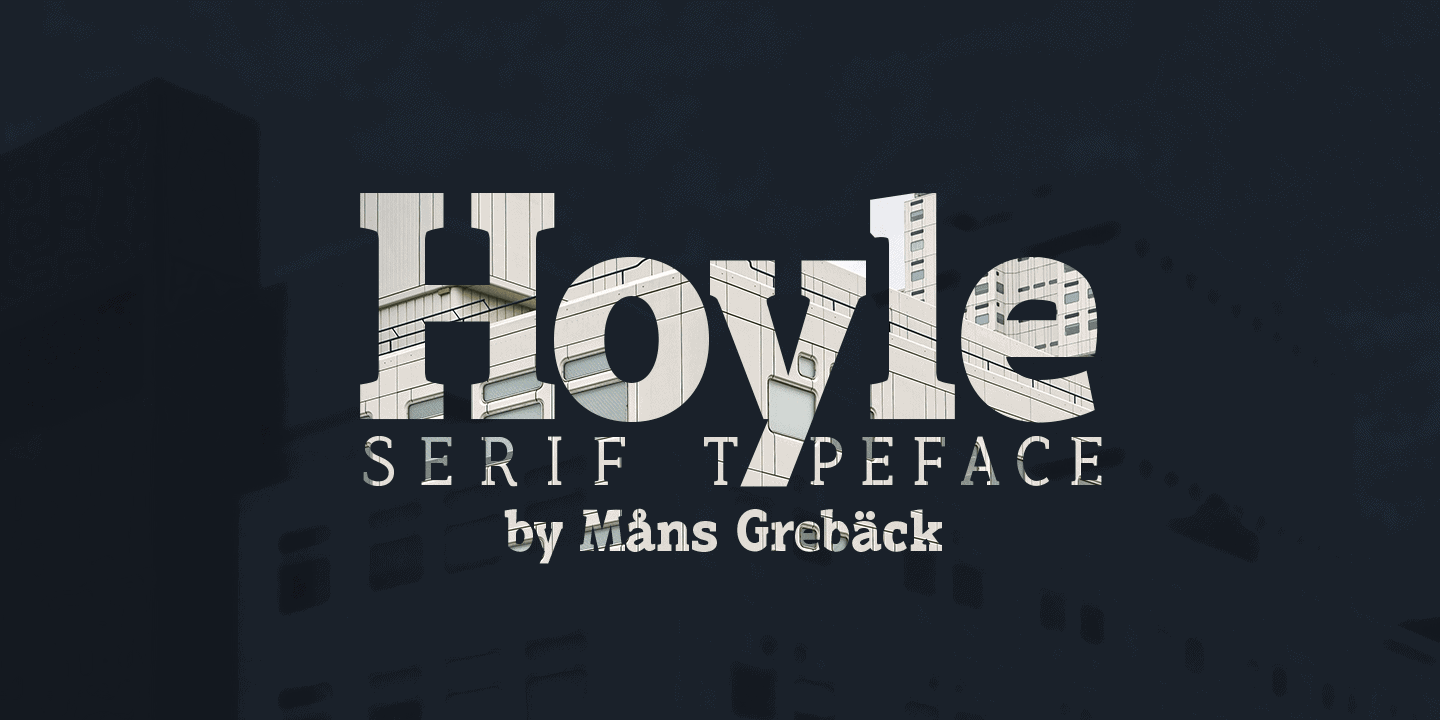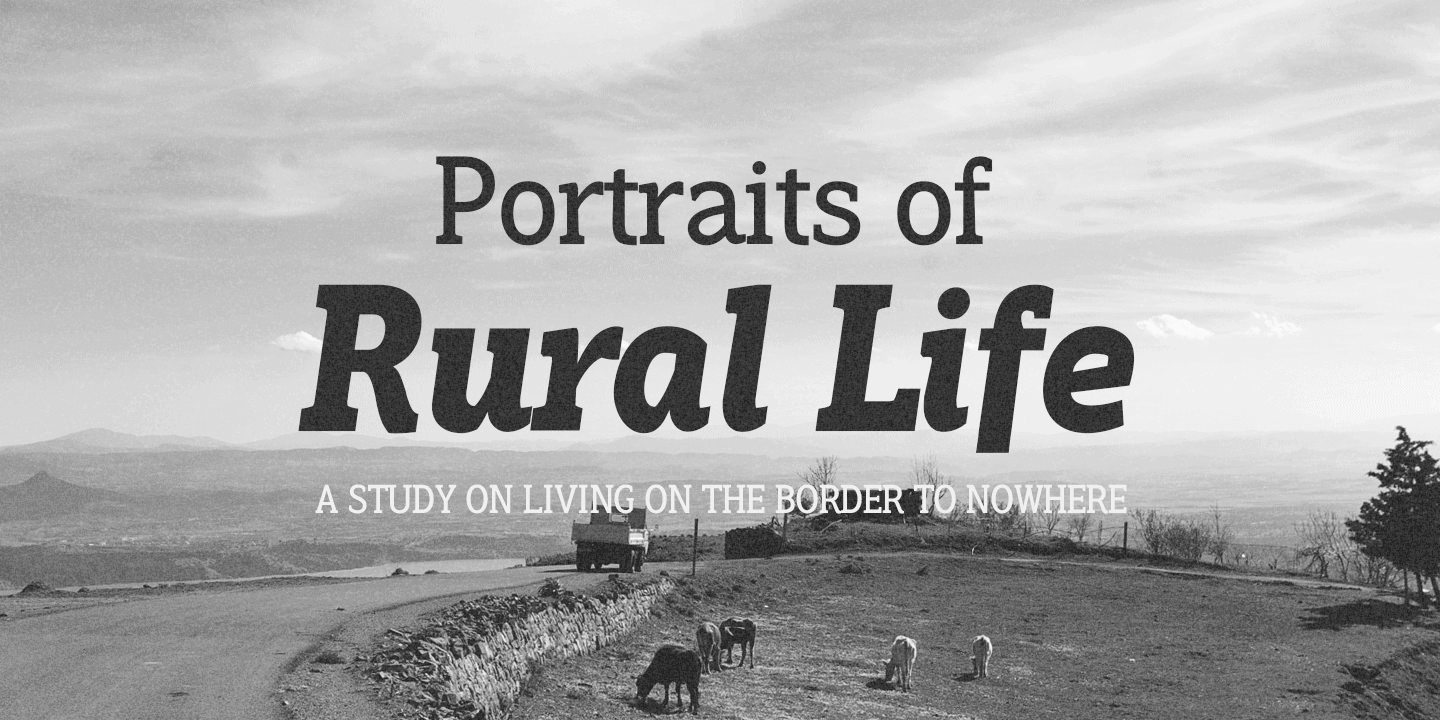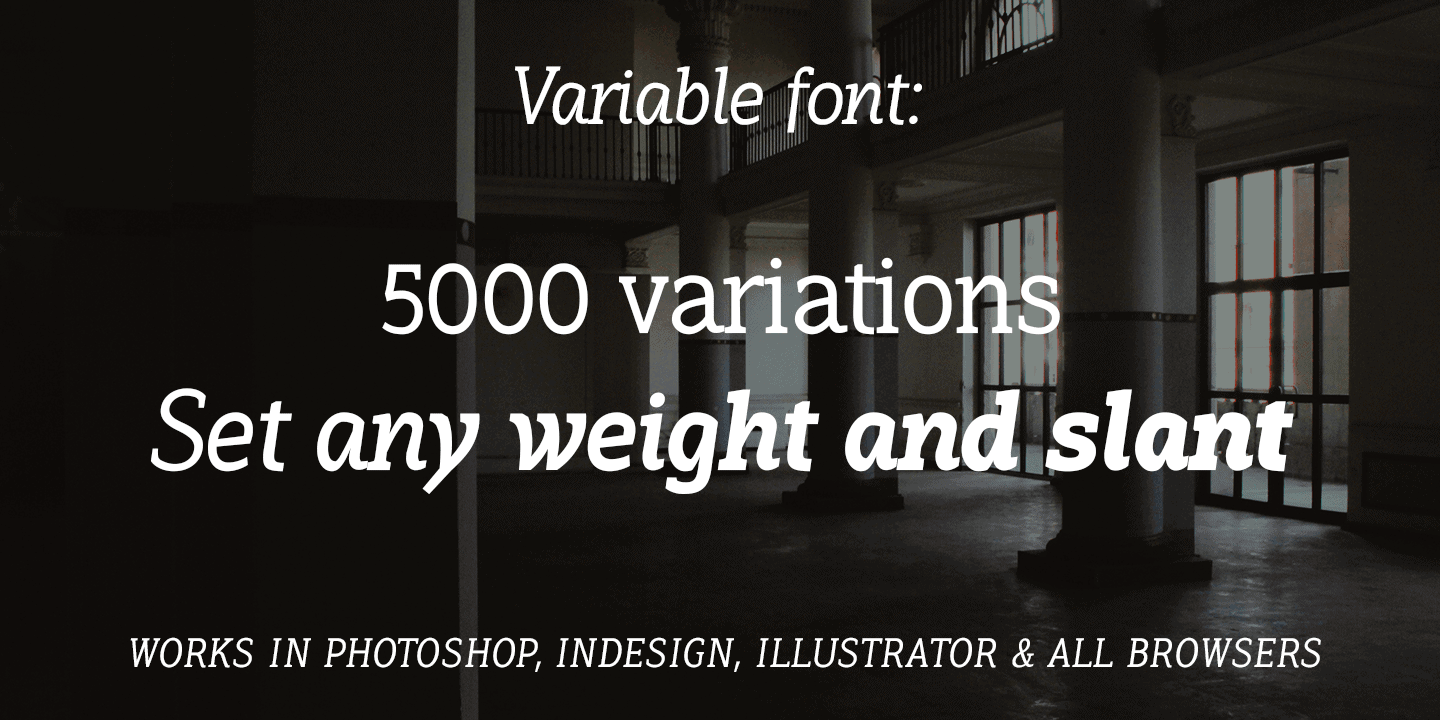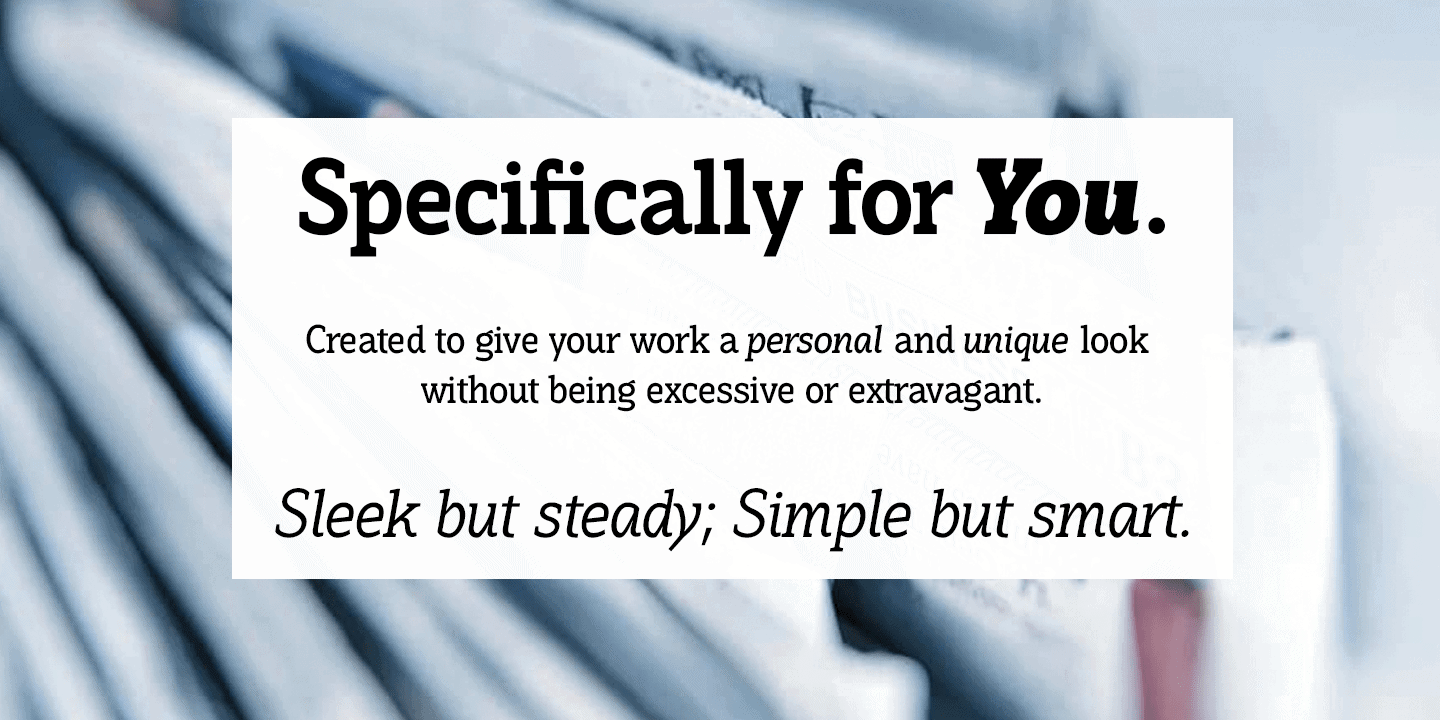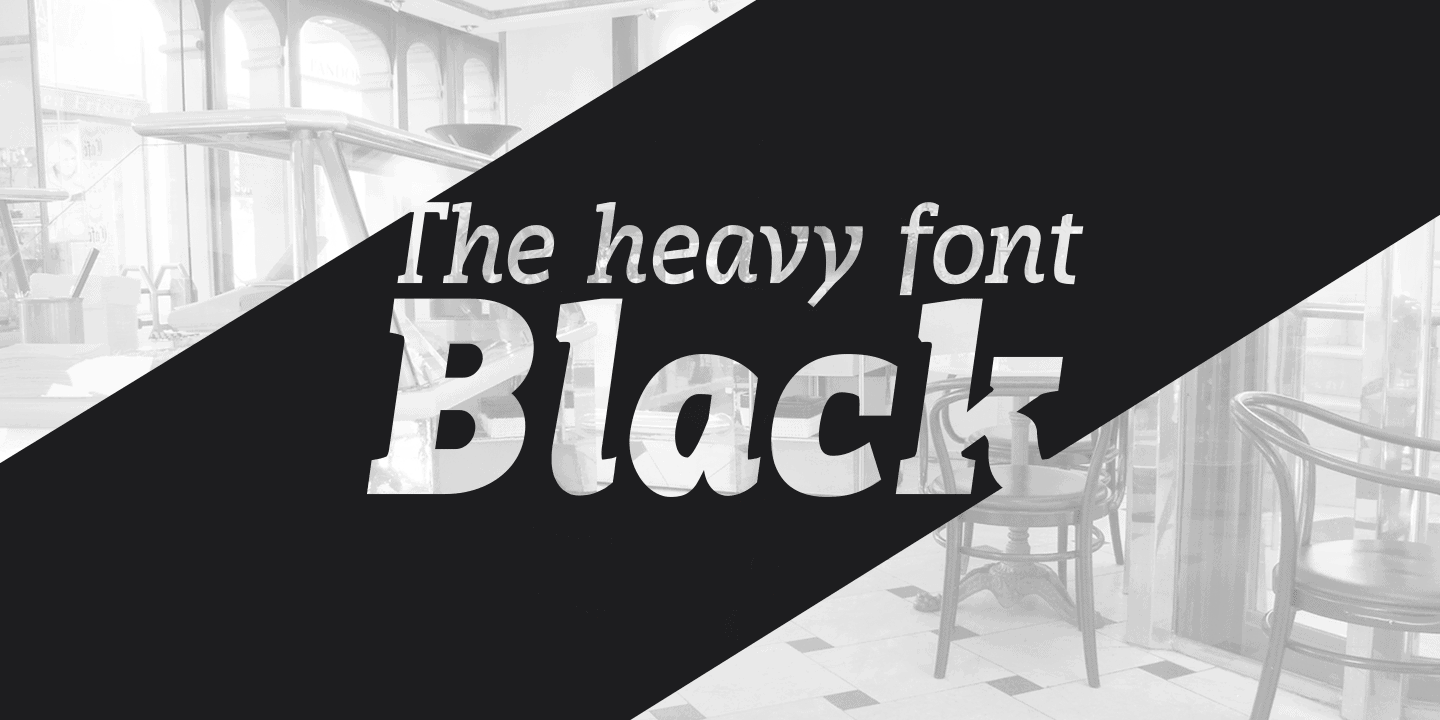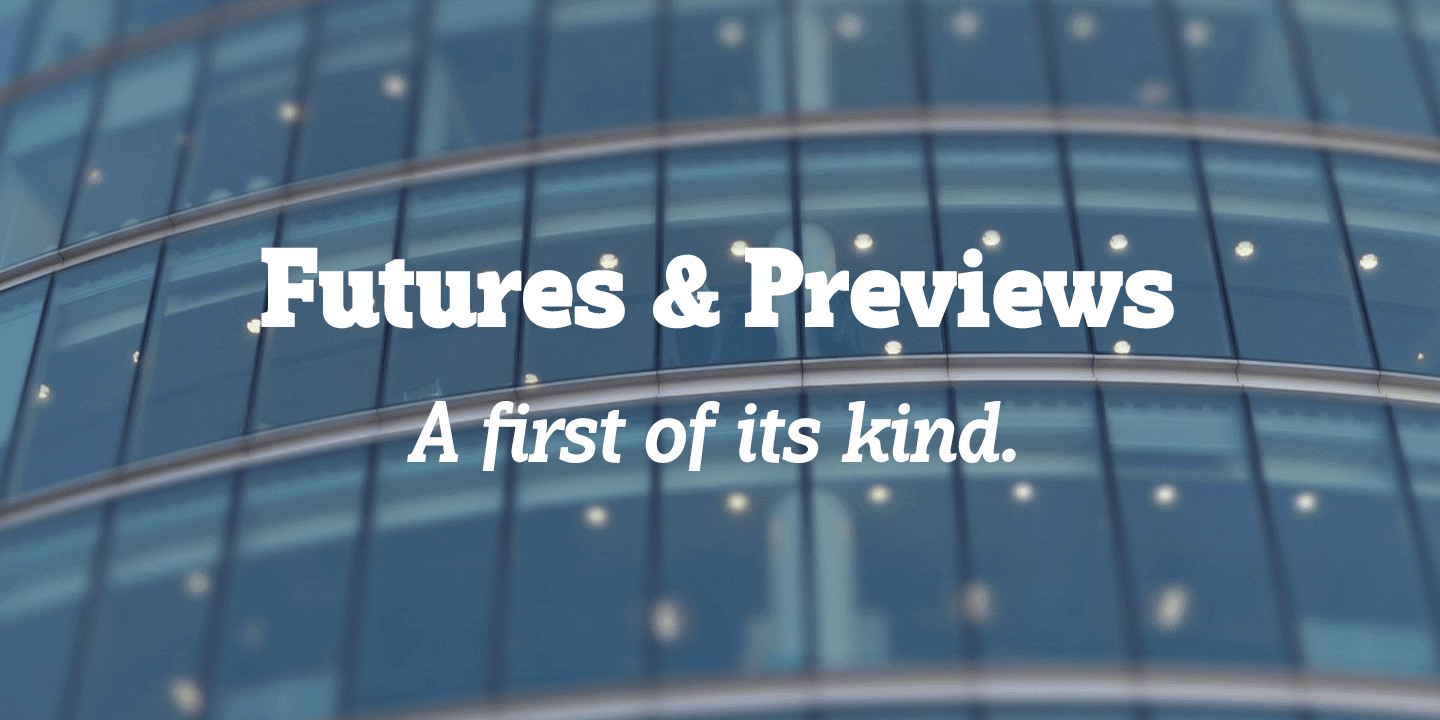
Hoyle
Hoyle is a dynamic high-quality serif typeface. Its classic design makes use of the fact that timelessness is the best manner to achieve modernity; the letters are of such composition that they will always be simultaneously contemporary and traditional.
Hoyle is a family containing five weights: Thin, Light, Medium, Bold and Black. Each weight is also provided as Italic, resulting in 10 unique styles.
Try the included Variable Font! A format where you can set any weight manually, and any slant, resulting in more than 5000 variations.